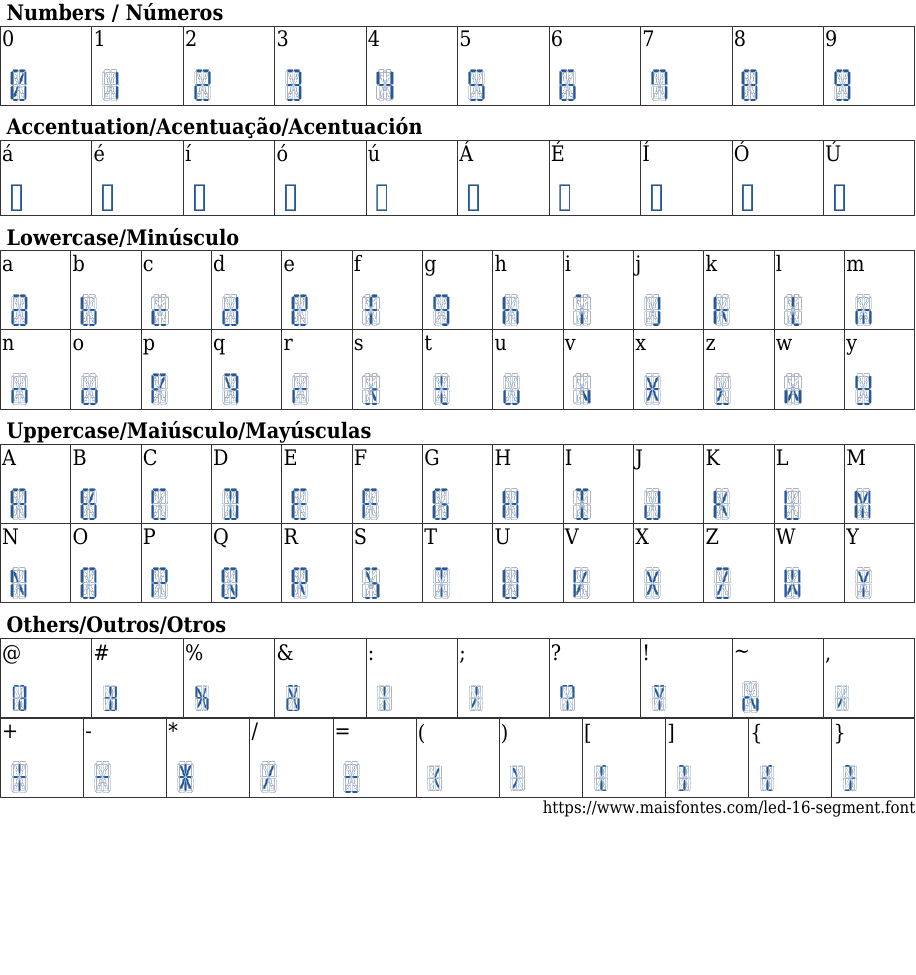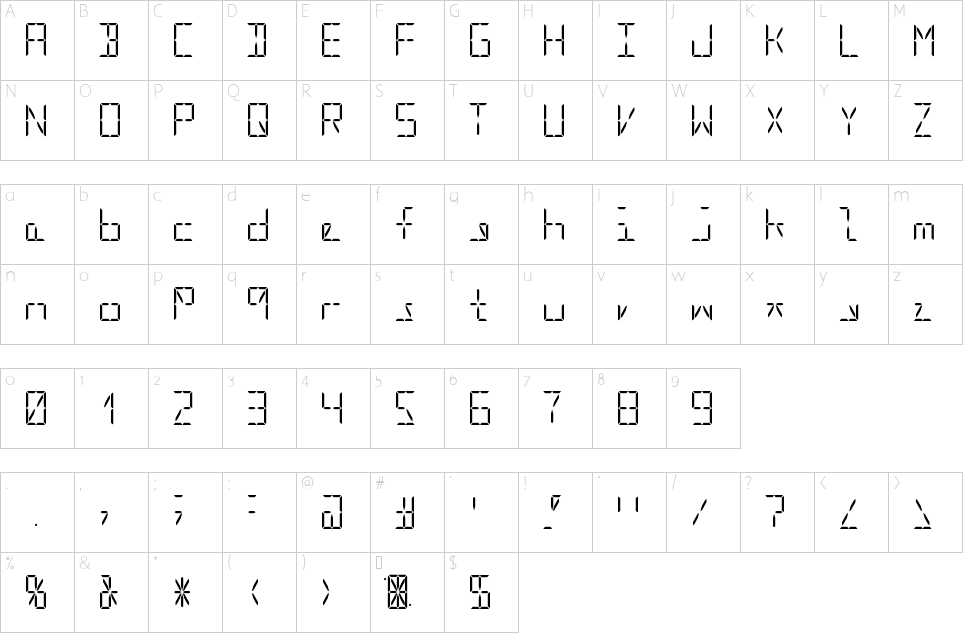
16 Segment Font
16 Segment Font - A digital typeface emulating a sixteen segment display. The 16 segments font contains 118 beautifully designed characters. 16 segments by (fonts by thor christopher. Looking for led 16 segment fonts? This font is free for personal use. Click to find the best 2 free fonts in the led 16 segment.